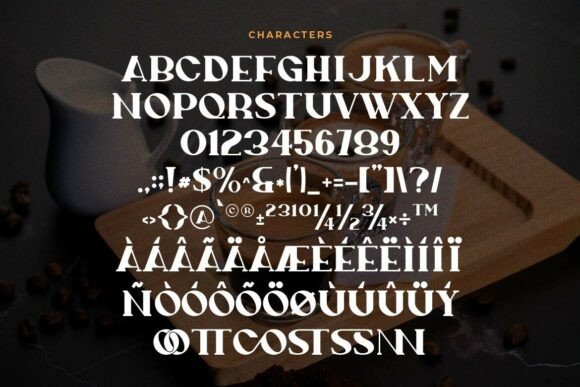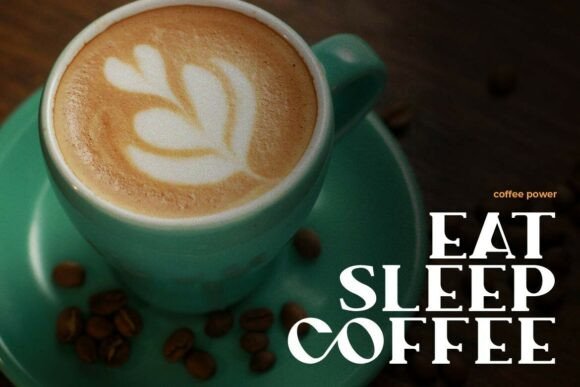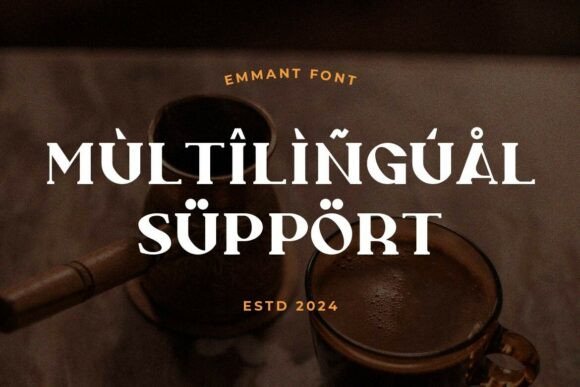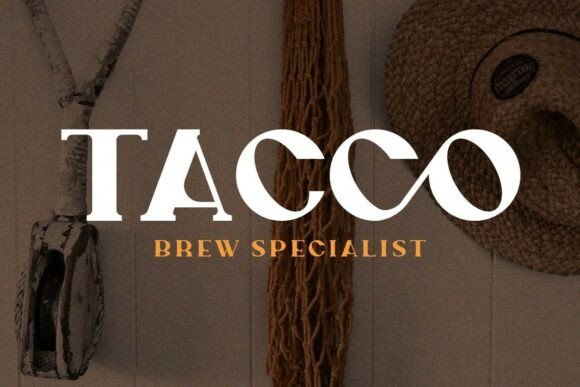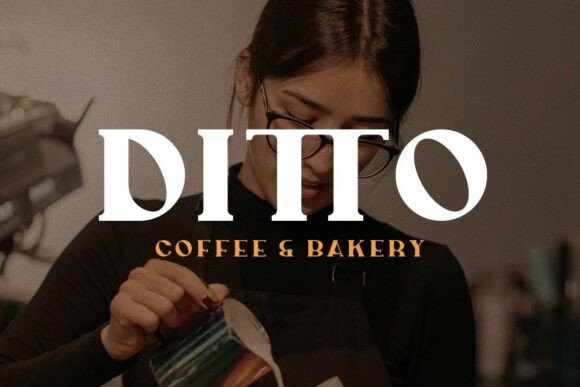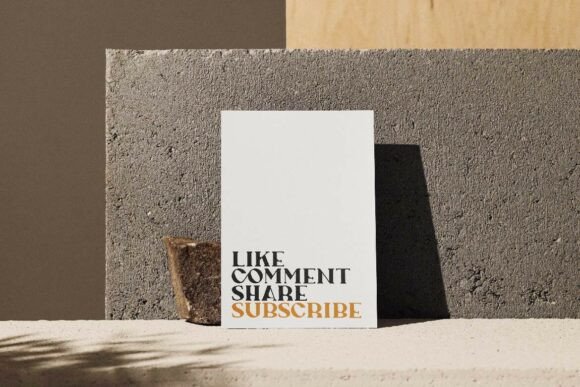
The Elegance of Emmant Font: A Designer’s Delight
I still remember the project like it was yesterday. I was working on a luxury branding campaign for a high-end jewelry client, and I was on a mission to find the perfect font to convey sophistication and elegance. Hours turned into days, and days into weeks, as I scrolled through font after font, but none seemed to capture the essence of the brand. That was until I stumbled upon Emmant Font. ✨
Emmant is a refined serif typeface that has been crafted to bring a touch of sophistication and charm to your typography. With its high-contrast strokes, sharp serifs, and graceful curves, Emmant strikes the perfect balance between classic beauty and modern elegance. It’s ideal for luxury branding, editorial layouts, wedding invitations, packaging, book covers, and stylish logo designs.
An Honest Review of Emmant Font
- ✨ High-contrast strokes that add a touch of elegance to any design
- ✅ Sharp serifs that provide a sense of sophistication and luxury
- 💫 Graceful curves that add a touch of femininity and whimsy
- 🎨 Versatile design that works well for a variety of applications, from branding to editorial layouts
While Emmant Font is an excellent choice for many design projects, there are a few quirks to be aware of. 🤔
- ⚠️ Limited availability of certain OpenType features in some software applications
- ⚠️ May not be the best choice for body text due to its high-contrast strokes and sharp serifs
A Practical Guide to Using Emmant Font
- Experiment with OpenType features, such as ligatures and stylistic alternates, to add visual interest to your design
The Backstory of Emmant Font
Emmant Font was designed by a team of typographers who were inspired by the elegance of classic serif fonts and the sophistication of modern design. The font is named after a fictional character, Emmant, who embodies the qualities of refinement and luxury. The design team spent countless hours perfecting the font, ensuring that it would be a versatile and elegant choice for designers and crafters.
Q: What is Emmant Font?
A: Emmant Font is a refined serif typeface crafted to bring sophistication and charm to your typography.
Q: What is Emmant Font used for?
A: Emmant Font is ideal for luxury branding, editorial layouts, wedding invitations, packaging, book covers, and stylish logo designs.
Q: Is Emmant Font easy to use?
A: Yes, Emmant Font is easy to use and works well in a variety of design software applications, including Canva, Adobe Photoshop, and Microsoft Word.